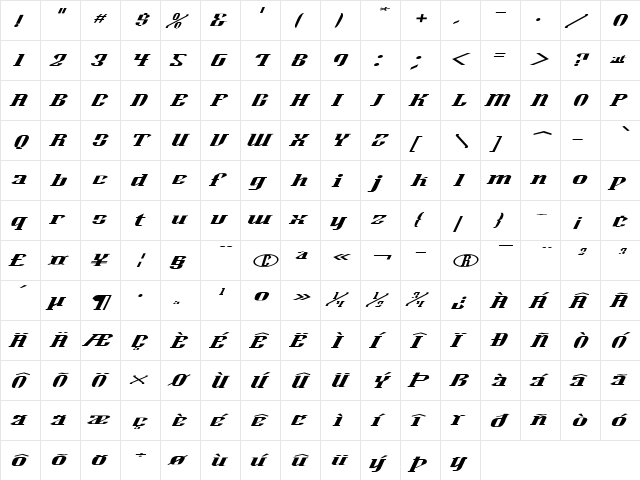
Alexander Bold Italic
Design Context for Alexander Typeface
Alexander is a composed and adaptable typeface that performs quietly and consistently across a wide range of design contexts. The dynamic lean of this cut emphasises speed and emphasis in any layout. Its bold stroke weight gives it real presence on the page.